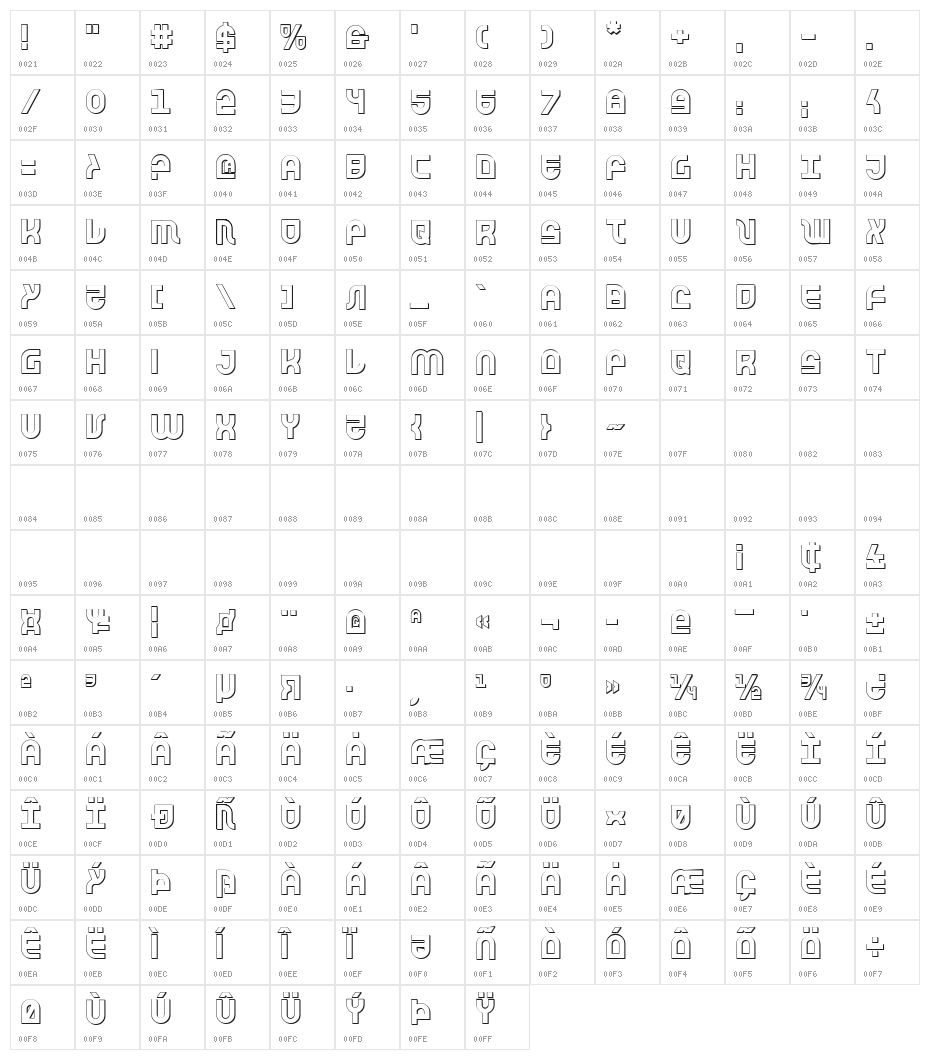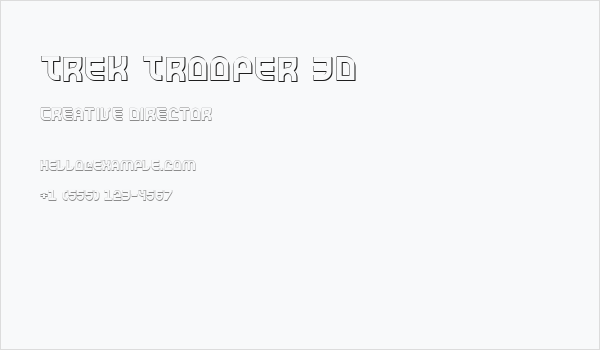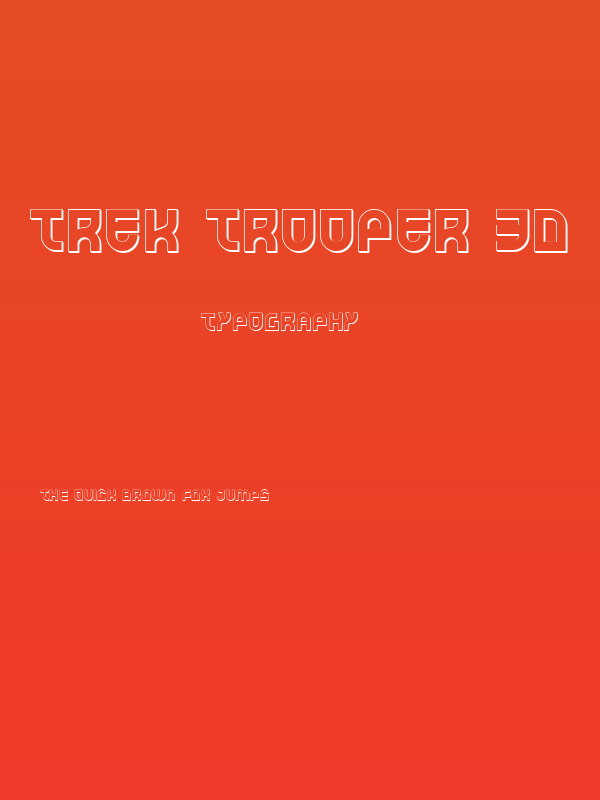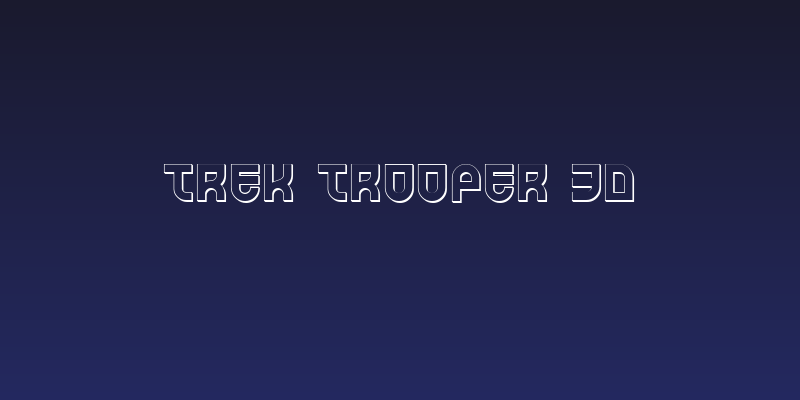
Trek Trooper 3D Font
Trek Trooper 3D Description
This font features a futuristic and geometric design with a 3D effect, characterized by bold, angular lines and a hollow interior. The uppercase and lowercase letters maintain a consistent style, with sharp edges and a blocky appearance. The numerals and special characters follow the same design principles, ensuring uniformity across the character set. The font's structure gives it a modern and technological feel, making it suitable for projects that require a strong visual impact.
Proposed ProjectsIdeal for sci-fi themed designs, video game titles, technology branding, and posters.